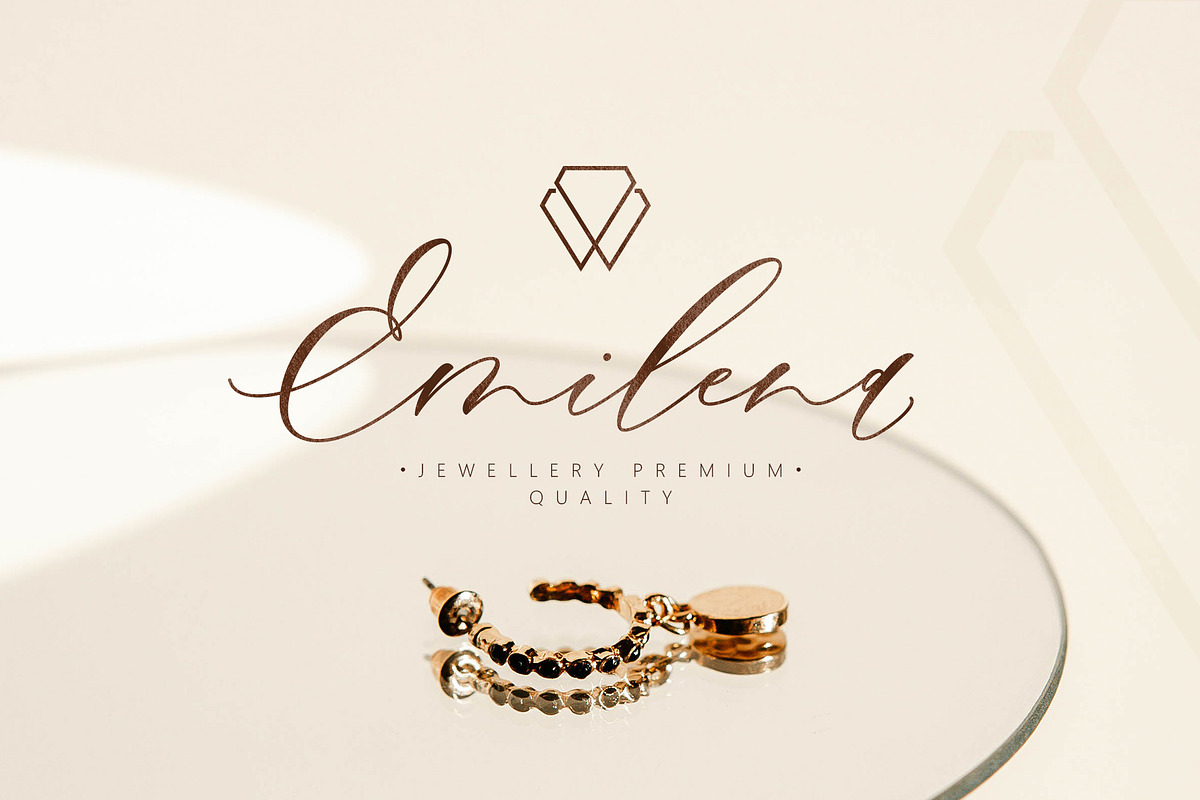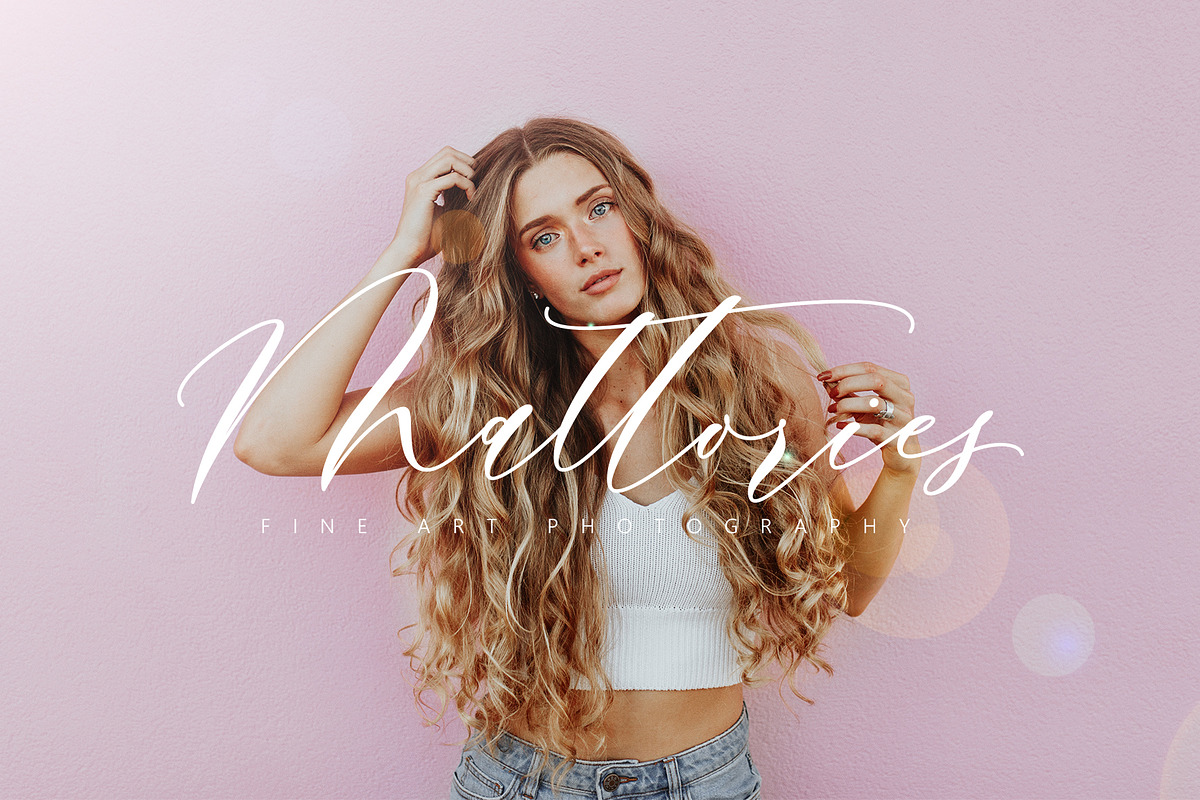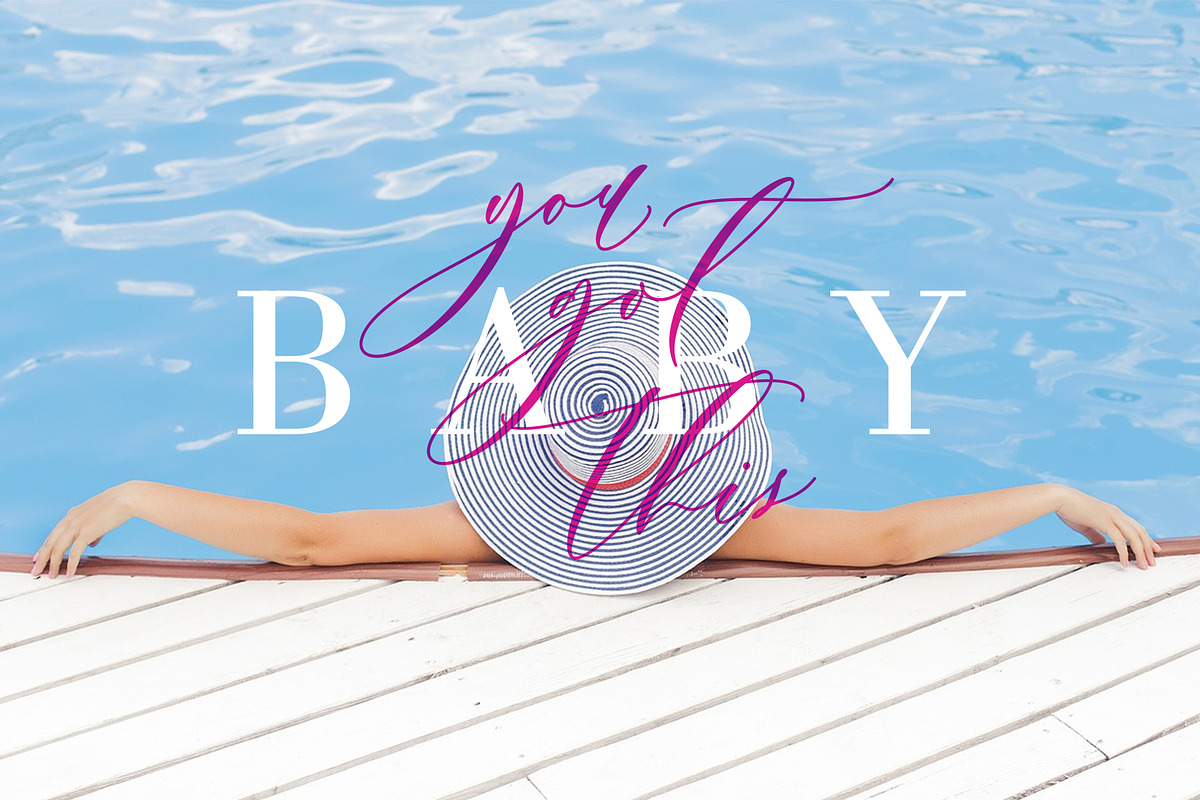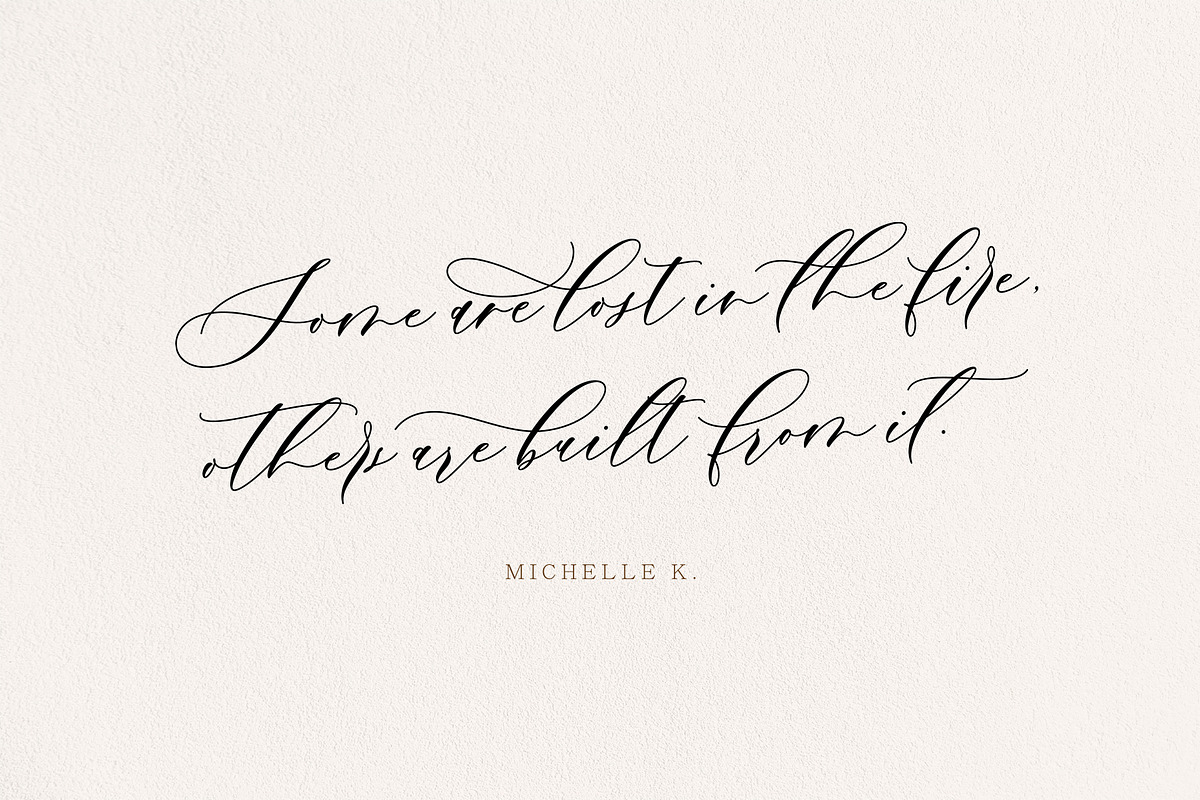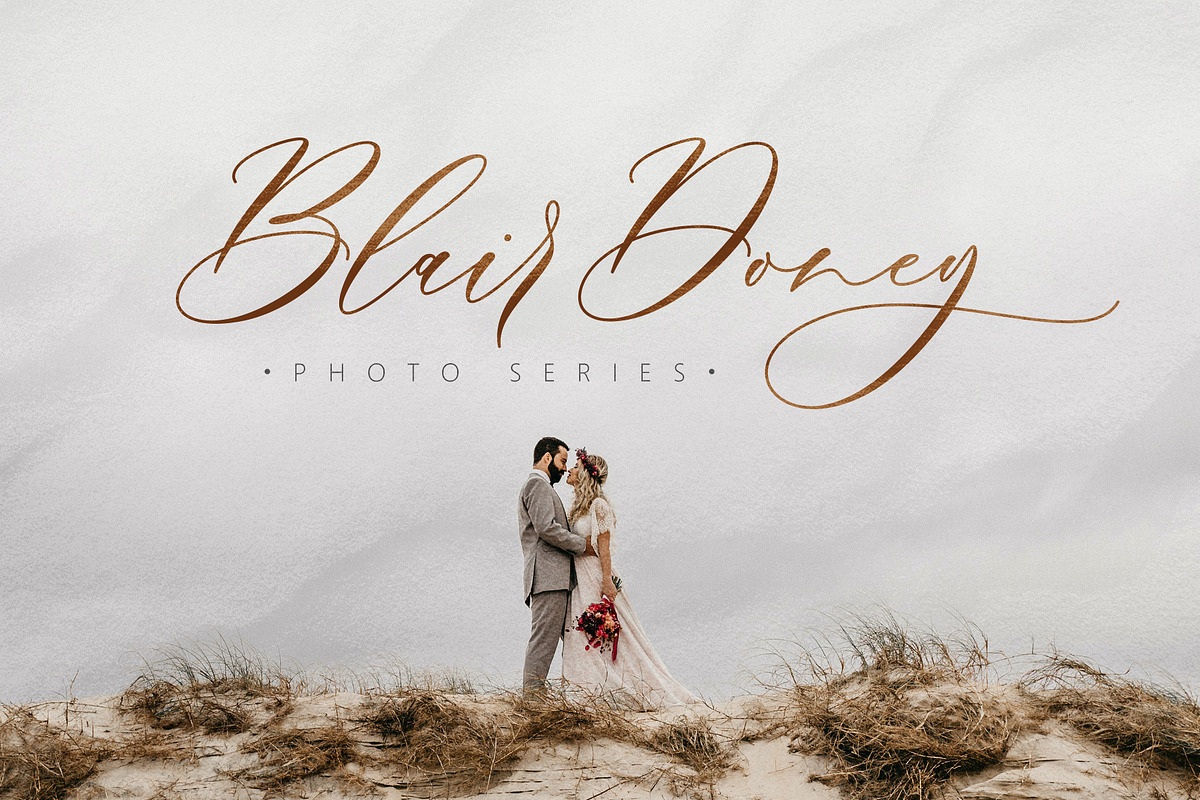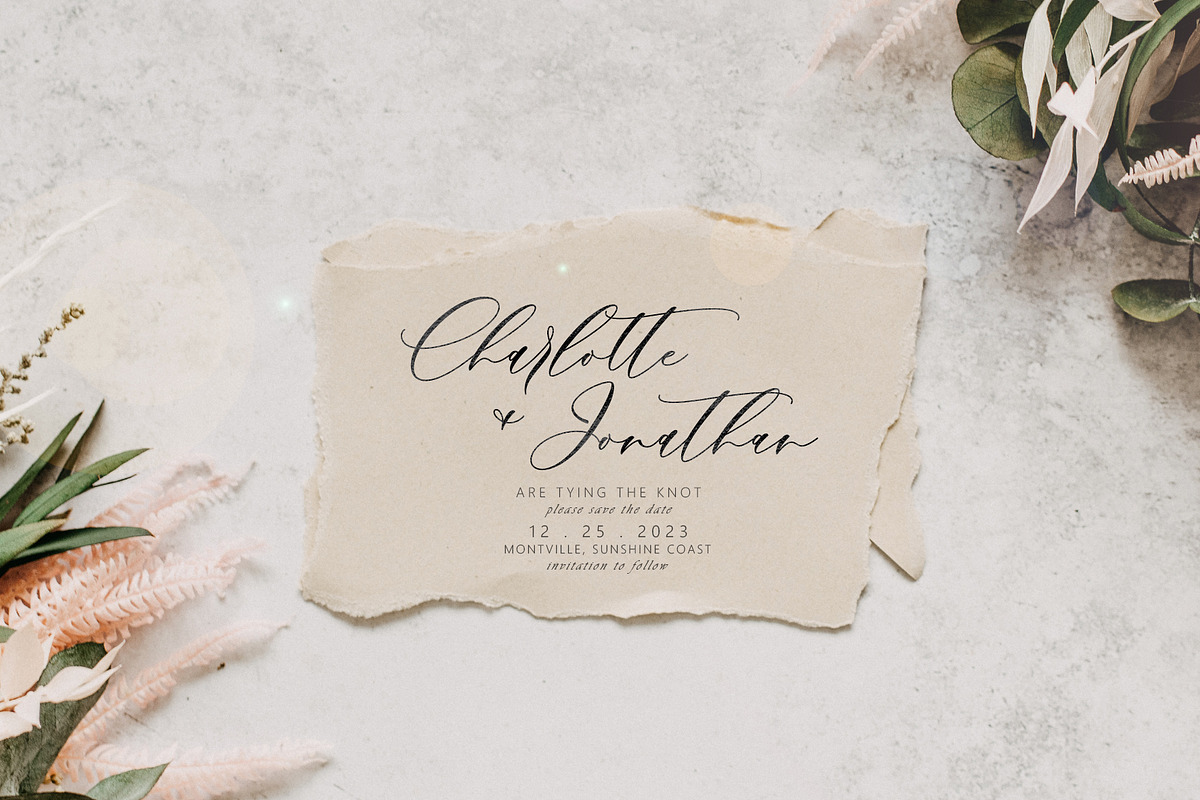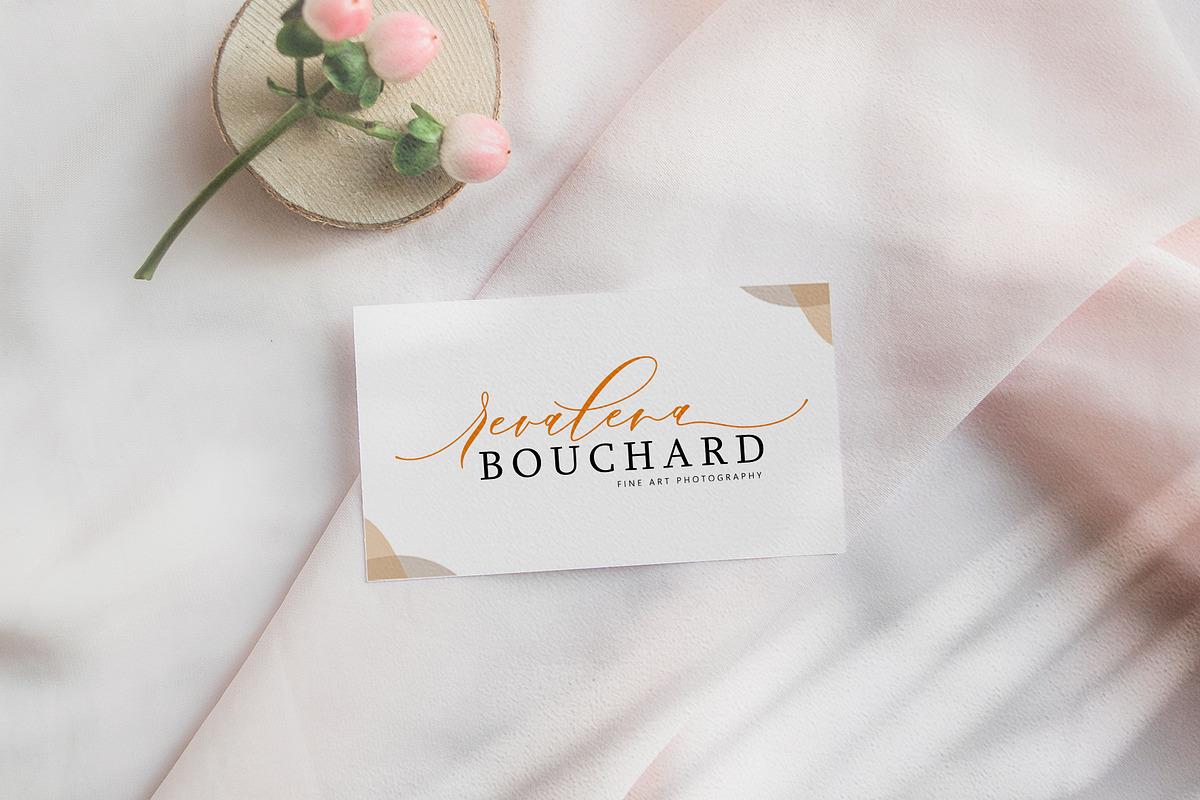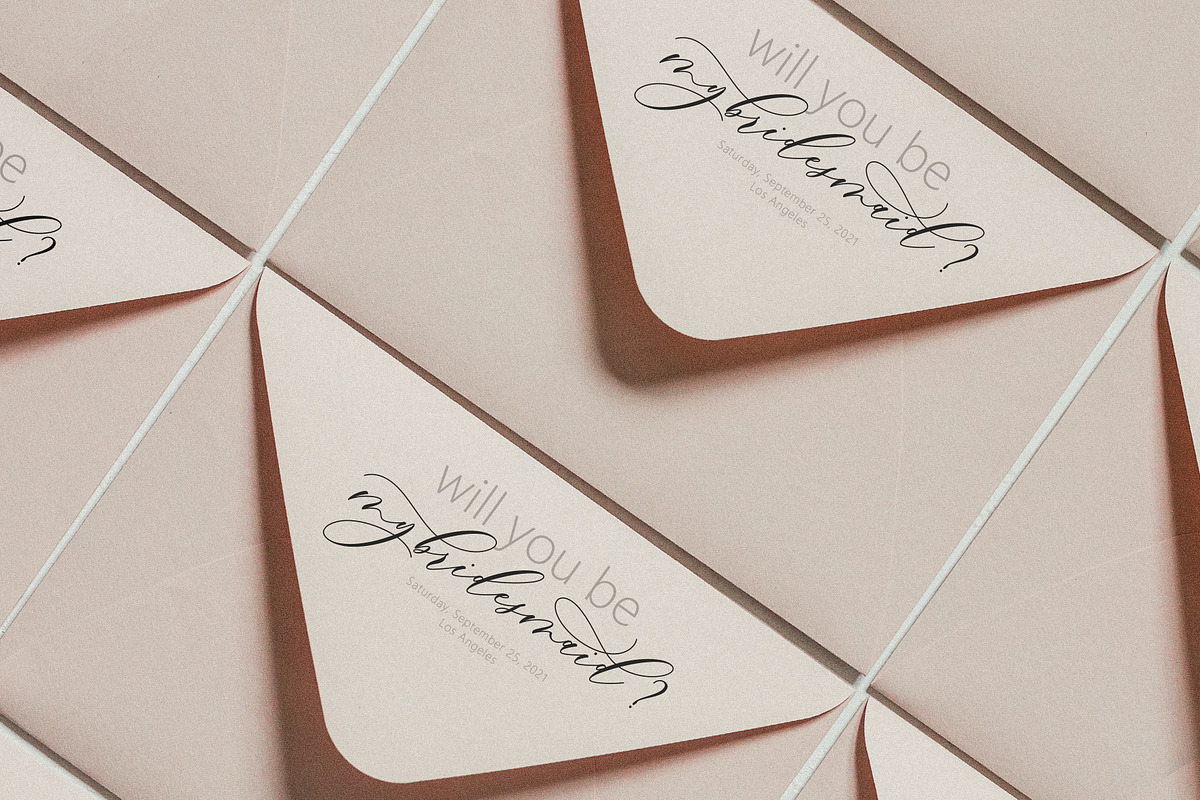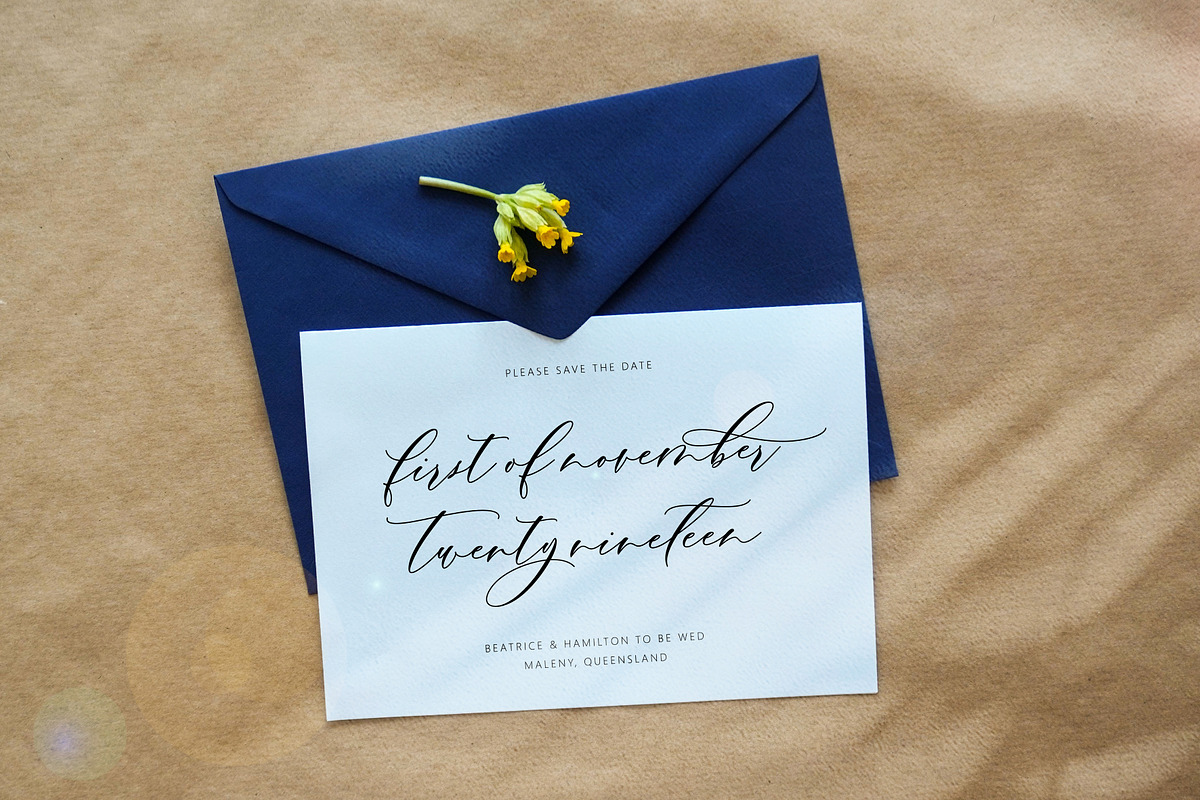
Bertholina Script
Bertholina is a beautiful modern calligraphy script font that is suitable for branding, wedding invitations, greeting cards, posters, name card, quotes, blog header, logo, fashion, apparel, letter, stationery and other projects.